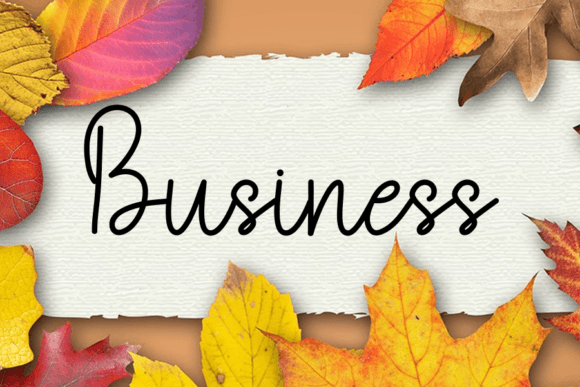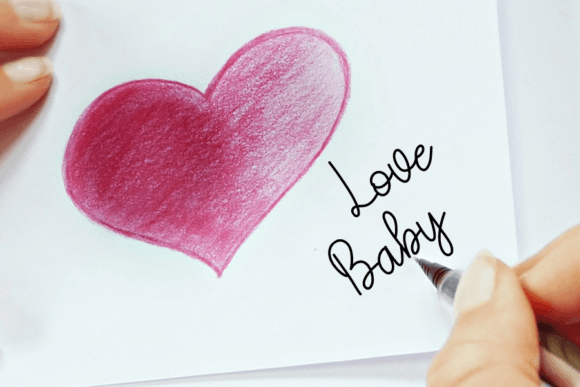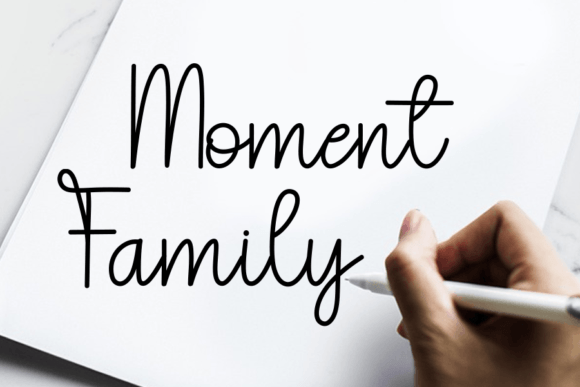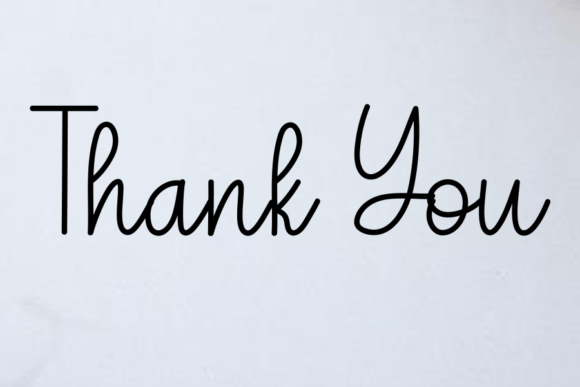
Glowing Font
About Glowing Font
“Glowing” is a delicate and romantic font that seamlessly combines trendiness, making it a perfect choice for various creative endeavors. Whether you’re using it for crafting, digital designing, presentations, or greeting card making, this font adds a touch of elegance to your projects.
The delicacy of “Glowing” is evident in its carefully crafted characters. The romantic undertones of the font create a sense of warmth and sophistication, making it ideal for projects that require a touch of romance and tenderness.
In crafting, “Glowing” becomes a valuable tool for adding a personal and artistic flair to your creations. The delicate and romantic nature of the font enhances the overall aesthetic of your craft projects, making them visually appealing and unique.
Digital design benefits from the trendy and elegant vibe of “Glowing.” Whether used in social media posts, websites, or other digital content, the font adds a touch of contemporary charm. Its versatility allows it to adapt seamlessly to various digital platforms.
Presentations are elevated by the delicate and romantic elements of “Glowing.” Whether incorporated into slides, titles, or other visual elements, the font brings a sense of sophistication and trendiness, capturing the attention of your audience and enhancing the overall presentation.
For greeting card making, “Glowing” proves to be a perfect choice. The romantic font adds a layer of emotion and charm to your messages, making the cards more heartfelt and visually appealing. Whether used for special occasions or everyday greetings, the font enhances the sentiment conveyed.
In essence, “Glowing” is more than just a font; it’s a design asset that infuses delicacy, romance, and trendiness into your creative projects. Embrace its elegant and romantic design, and let it elevate your crafting, digital designing, presentations, and greeting card making to new levels of sophistication. Let “Glowing” be the perfect font that brings a touch of contemporary romance to your creative endeavors.